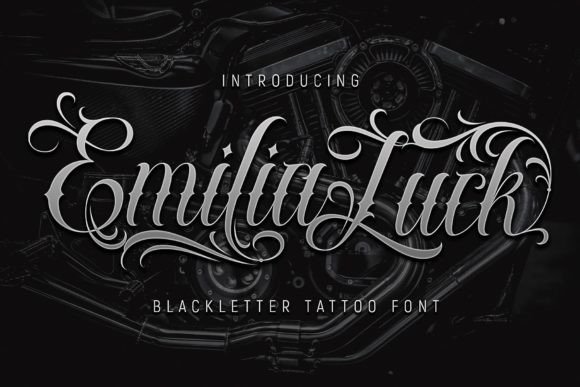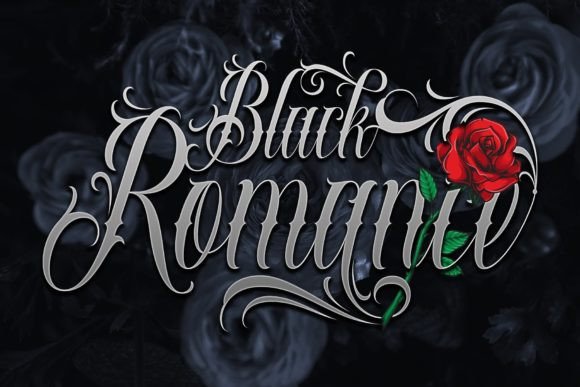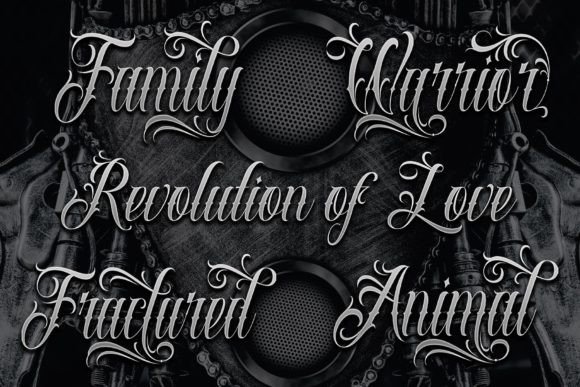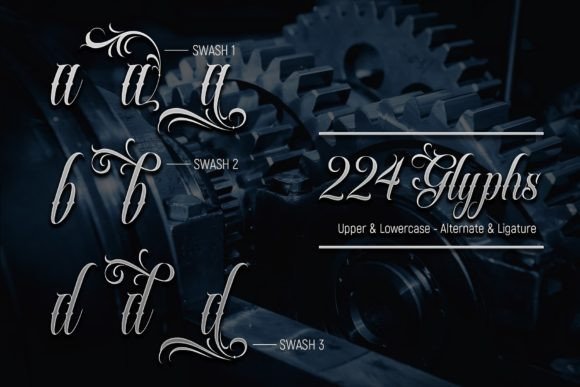
Emilia Luck Font: A Bold Blackletter for Tattoo Art & Logo Design
About the Emilia Luck Font
Discover the charm of Emilia Luck Font. This font is a perfect blend of modern aesthetics and classic appeal. Emilia Luck is a contemporary blackletter tattoo font that feels right at home on logos, t-shirt designs, posters, flyers, and other brand identity material. It’s an excellent typeface to integrate your artwork with.
Emilia Luck’s bold, slightly rebellious character makes it ideal for projects needing a strong visual impact. It excels in headlines, short impactful phrases, and logos where its distinctive blackletter style can command attention. Avoid using it for body text or lengthy passages; its intricate details become less legible at smaller sizes. Packaging and posters are also excellent applications.
For a balanced design, pair Emilia Luck with a clean sans-serif like Montserrat or a more geometric font such as Futura for a modern contrast. A subtle serif like Garamond could soften its edge for a more classic feel, depending on the brand’s desired aesthetic. Avoid pairing it with other decorative or script fonts, as this would create visual clutter.
The font’s inherent energy is best suited for brands targeting younger demographics or those associated with music, fashion, or the arts. Its assertive nature is less appropriate for projects requiring a sense of sophistication or understated elegance.
Emilia Luck Font Usage Examples
Emilia Luck Font Example